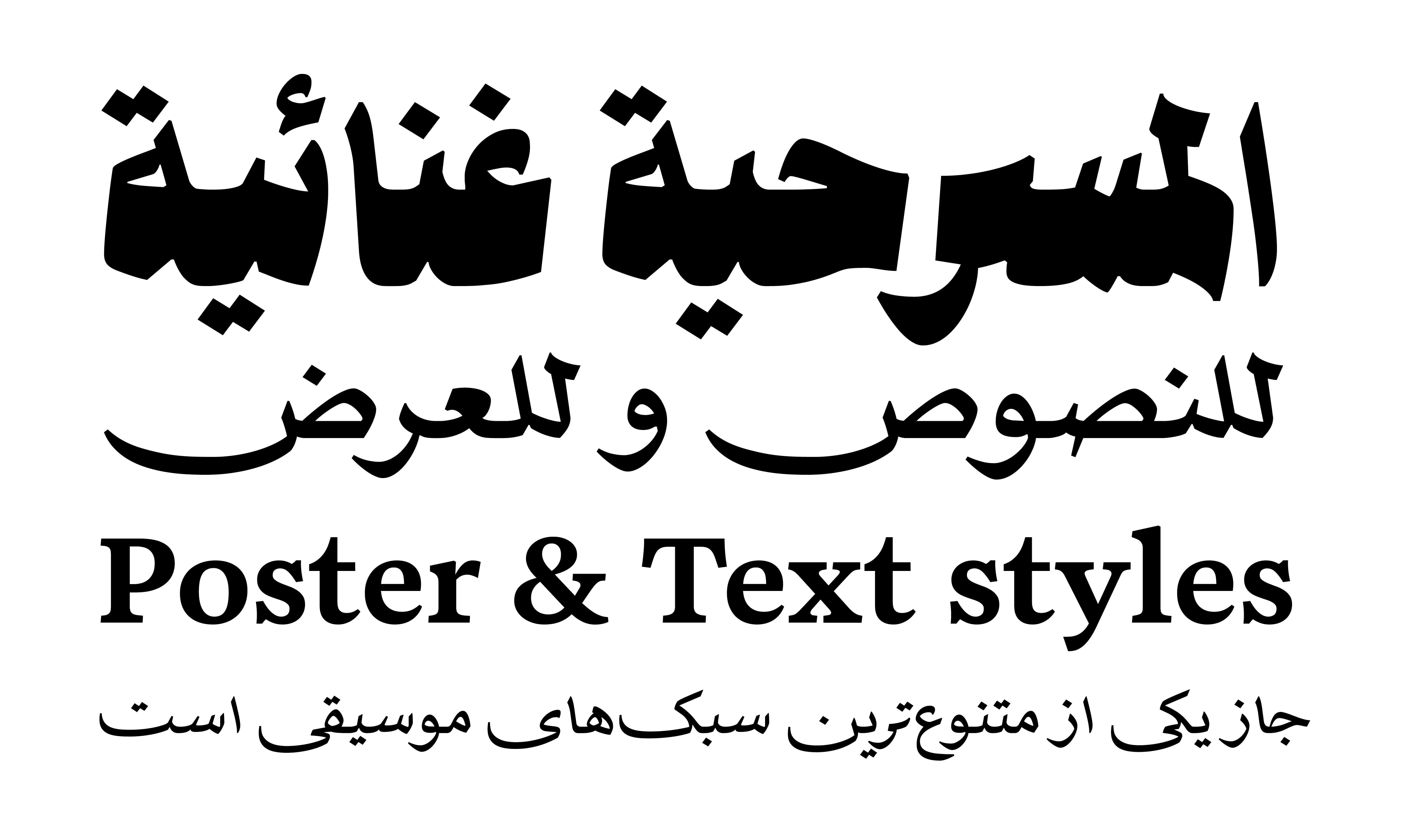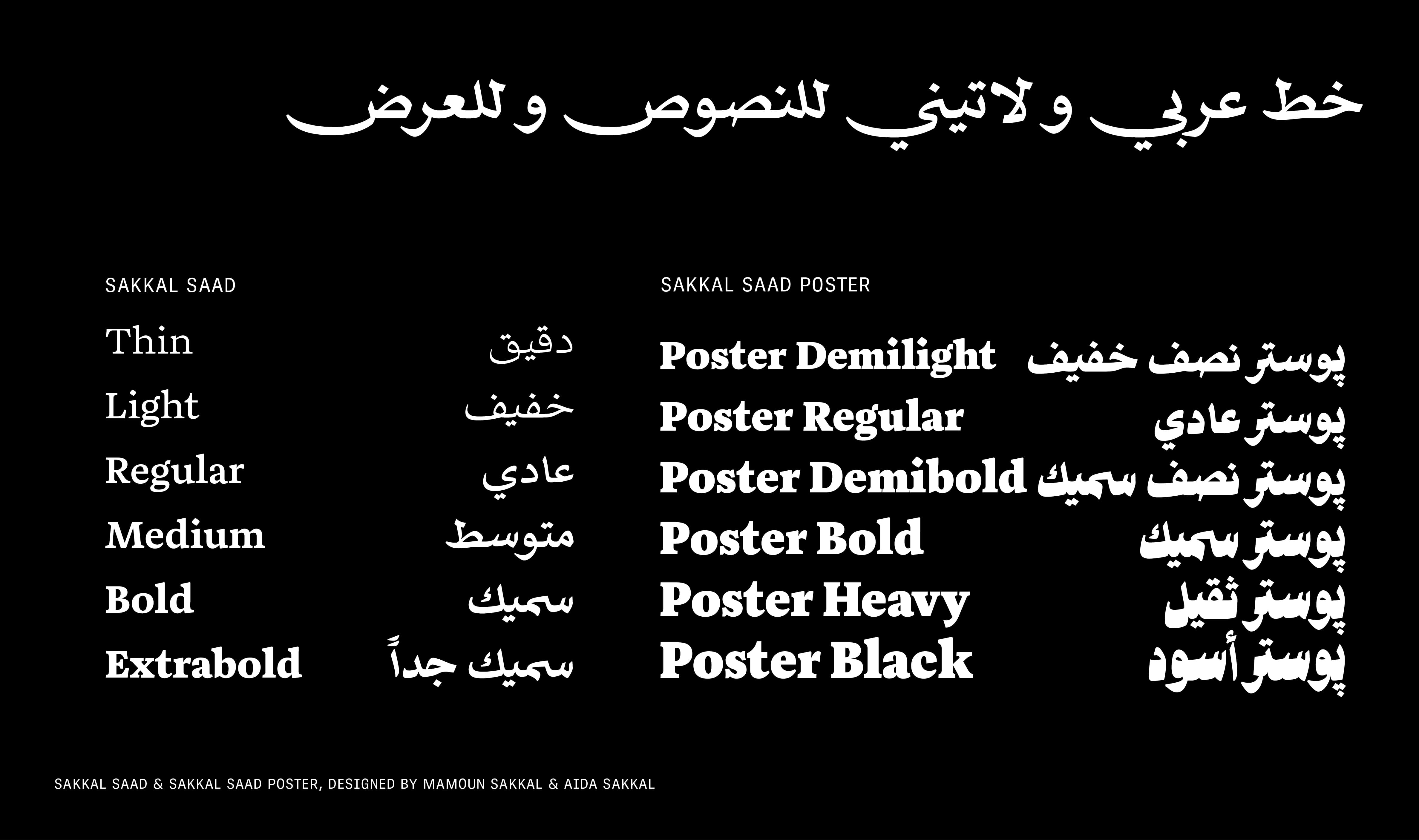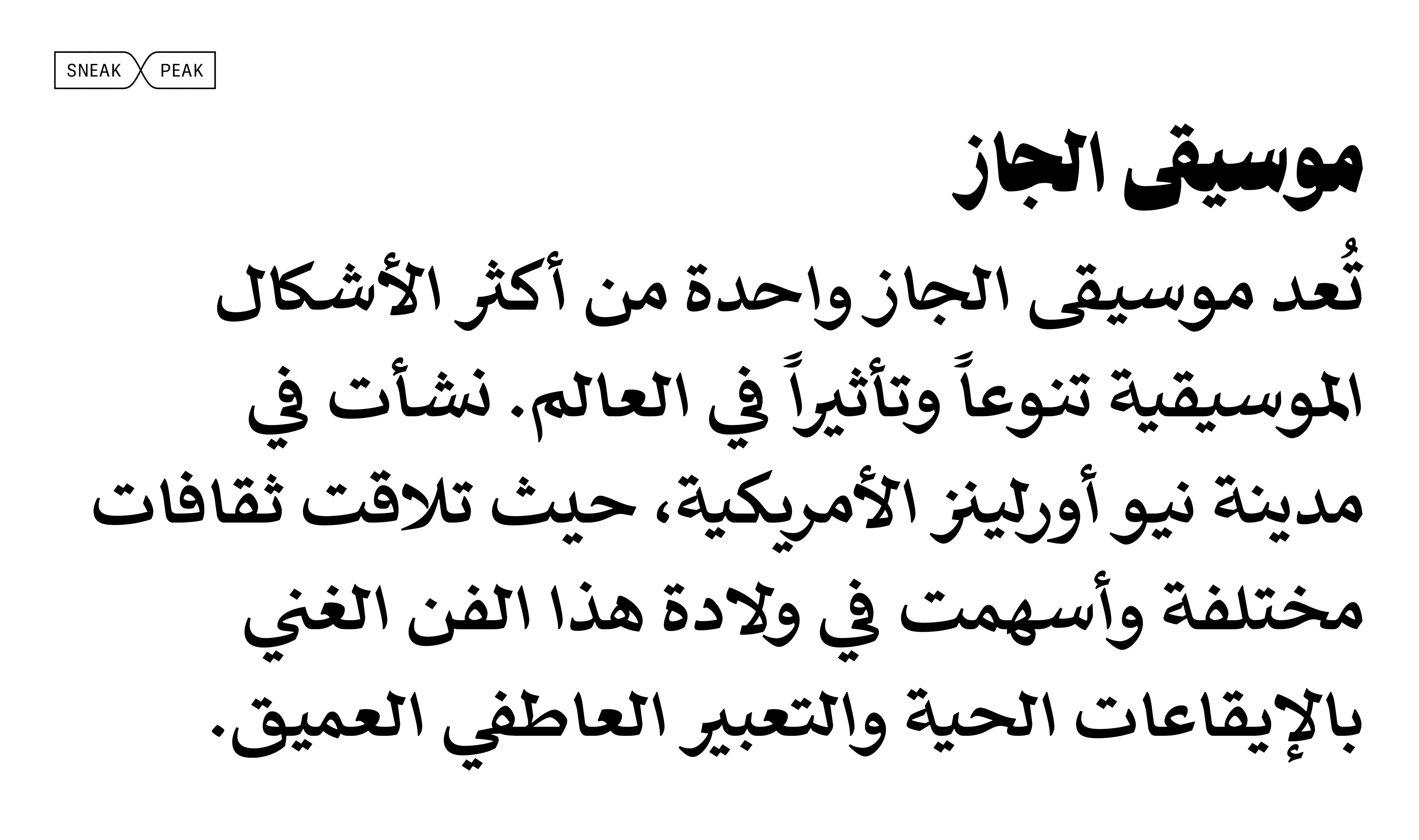
Sneak Peek: Sakkal Saad family
Sakkal Saad is a friendly, feature-rich family, ideal for long text settings, especially online and in books and magazines. Unlike most Arabic font families, Sakkal Saad has a generous six weights (Thin to Heavy) and almost 2,500 glyphs — double the average; the companion Poster family has six additional weights for a total of 12. Rounding out its abilities, a custom version of Aneto has been made to pair with it for Latin-based text. It won’t be too long before Sakkal Saad is released, and here is a sneak peek to hold you over.